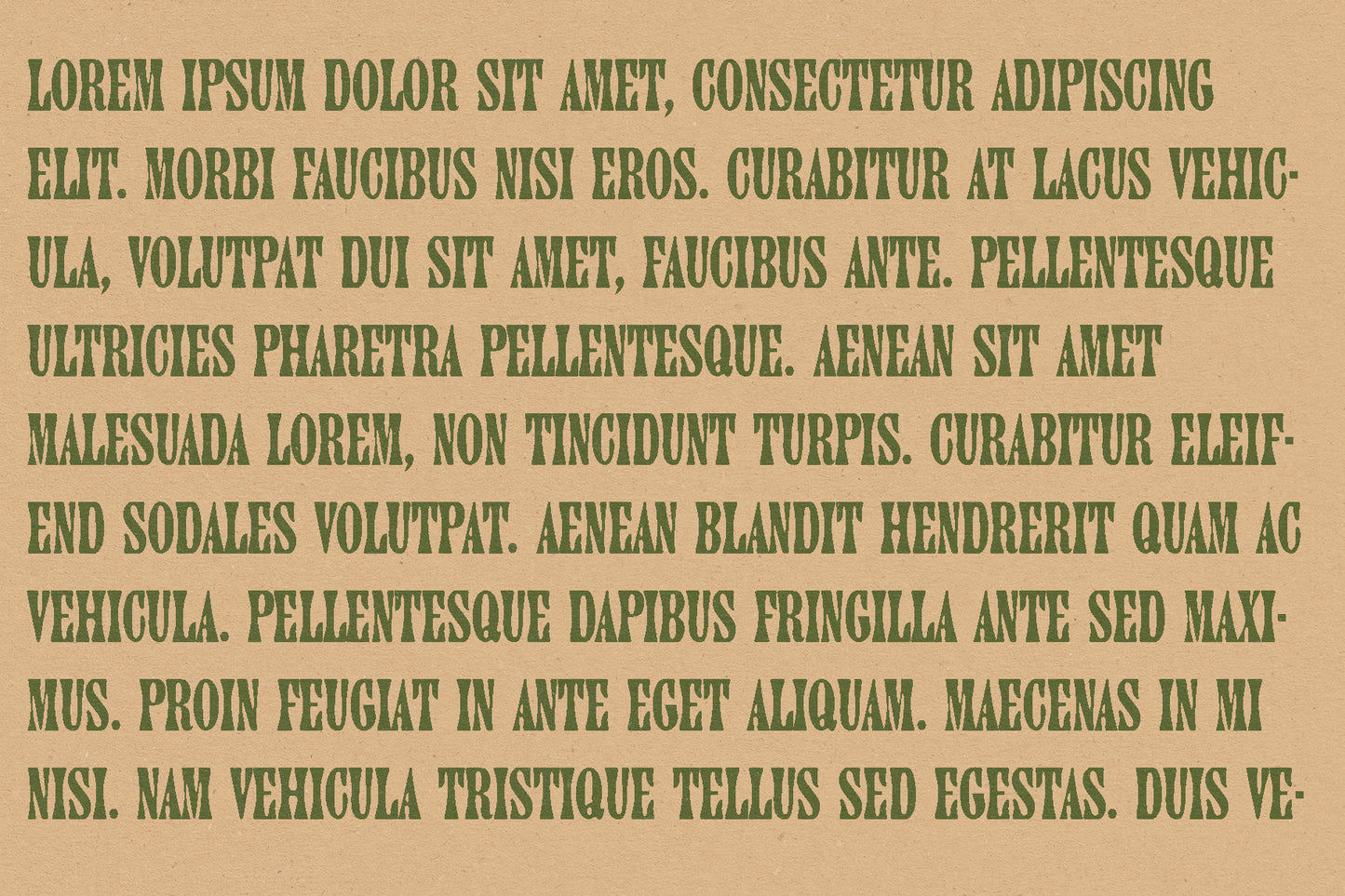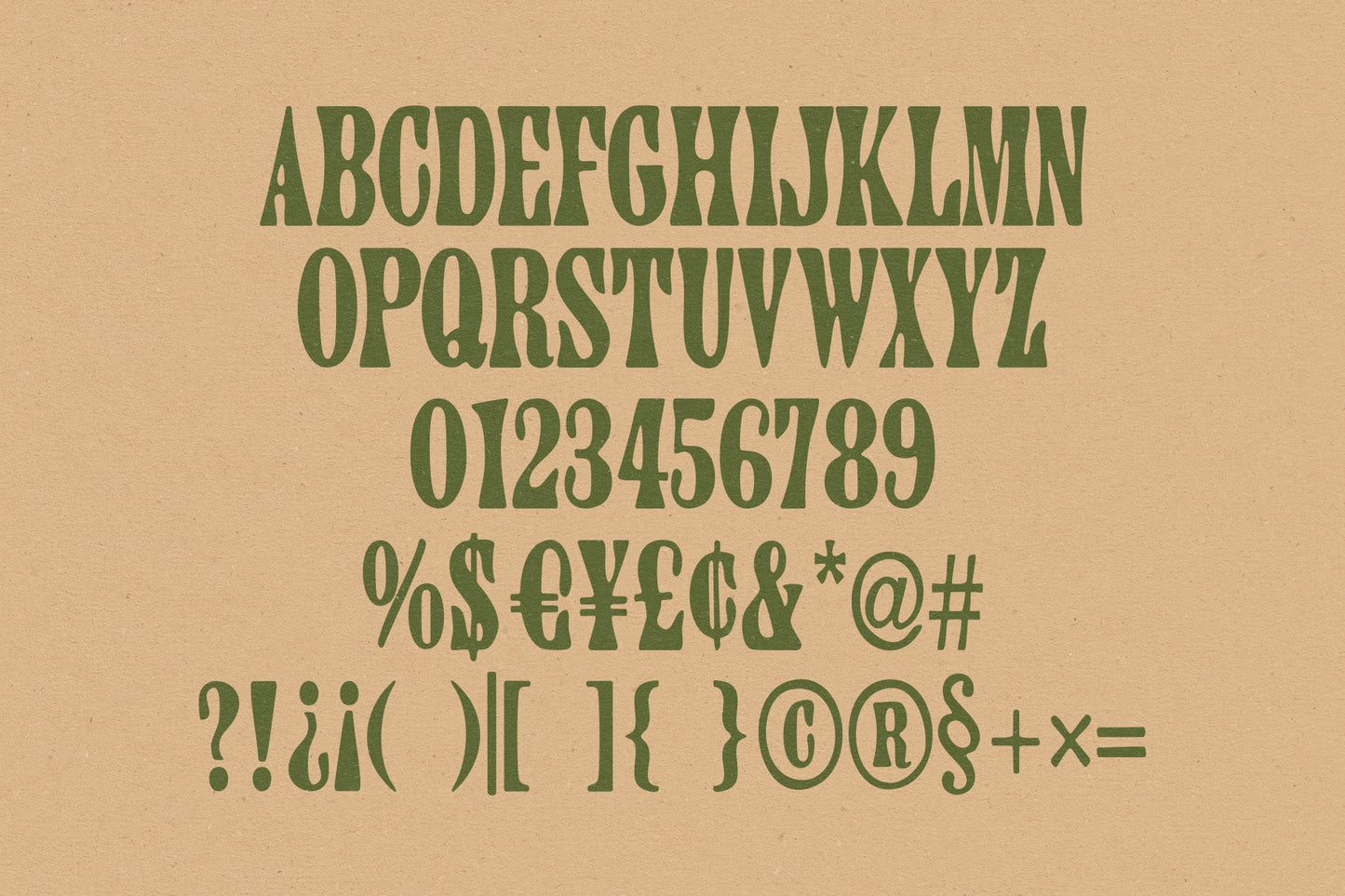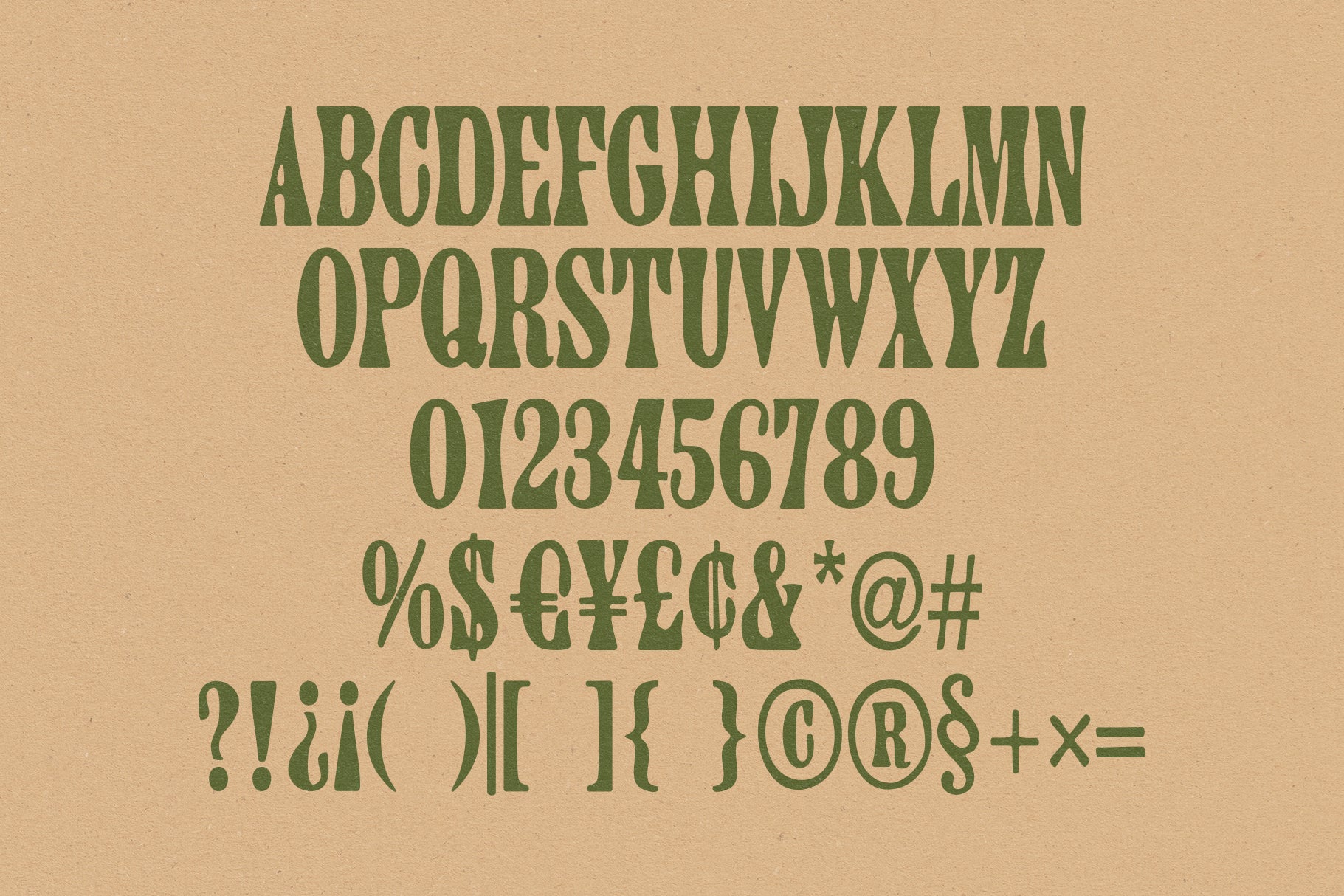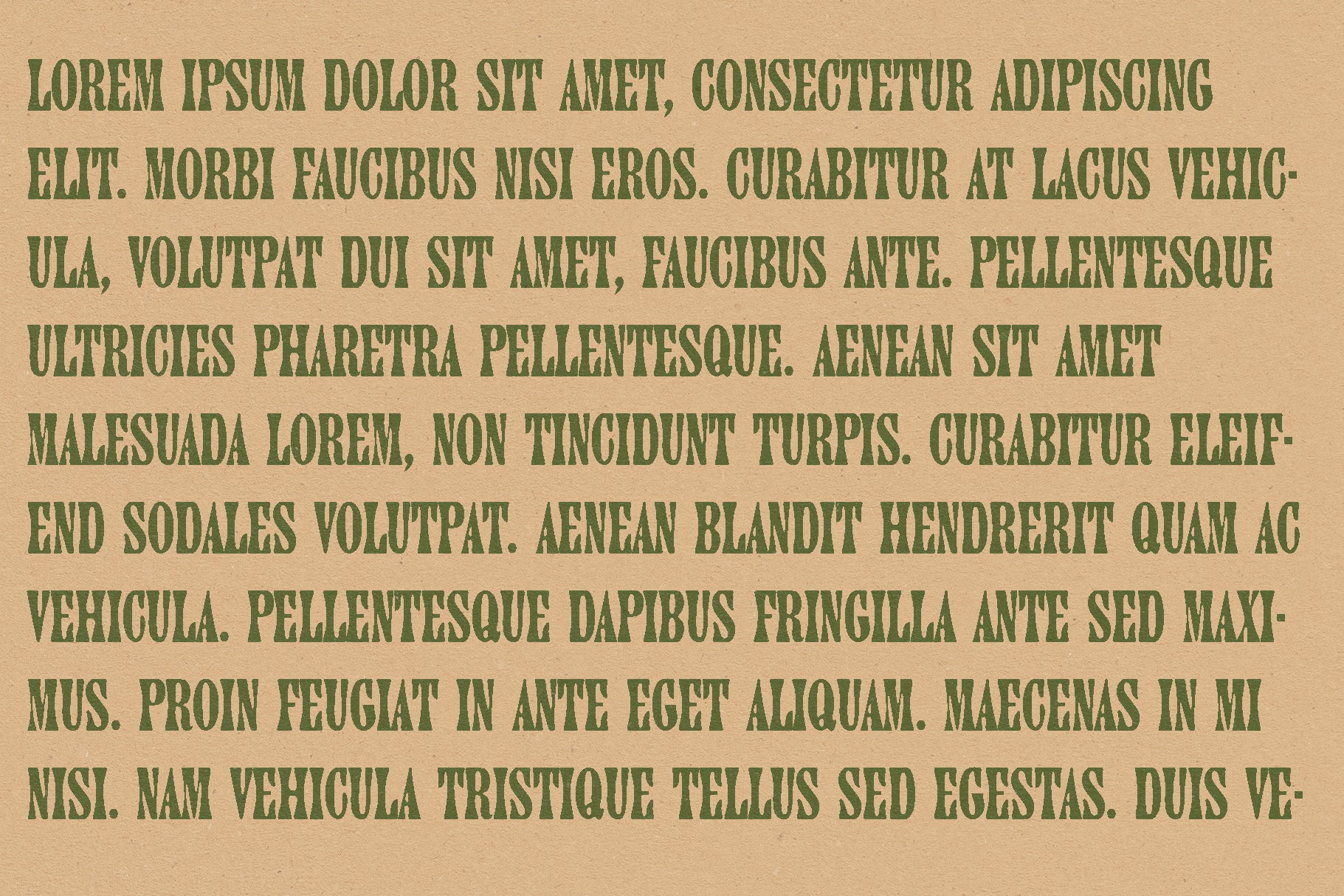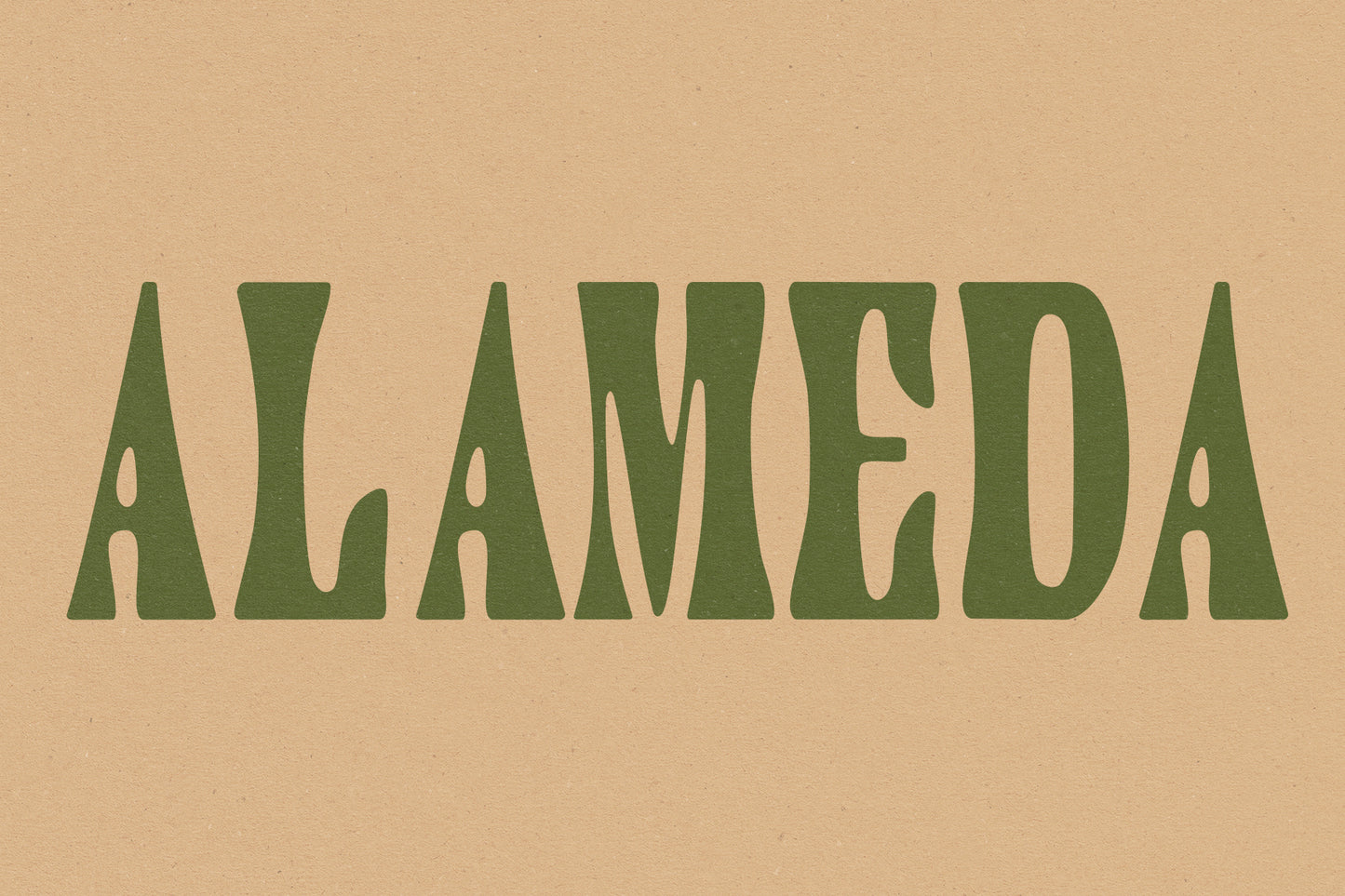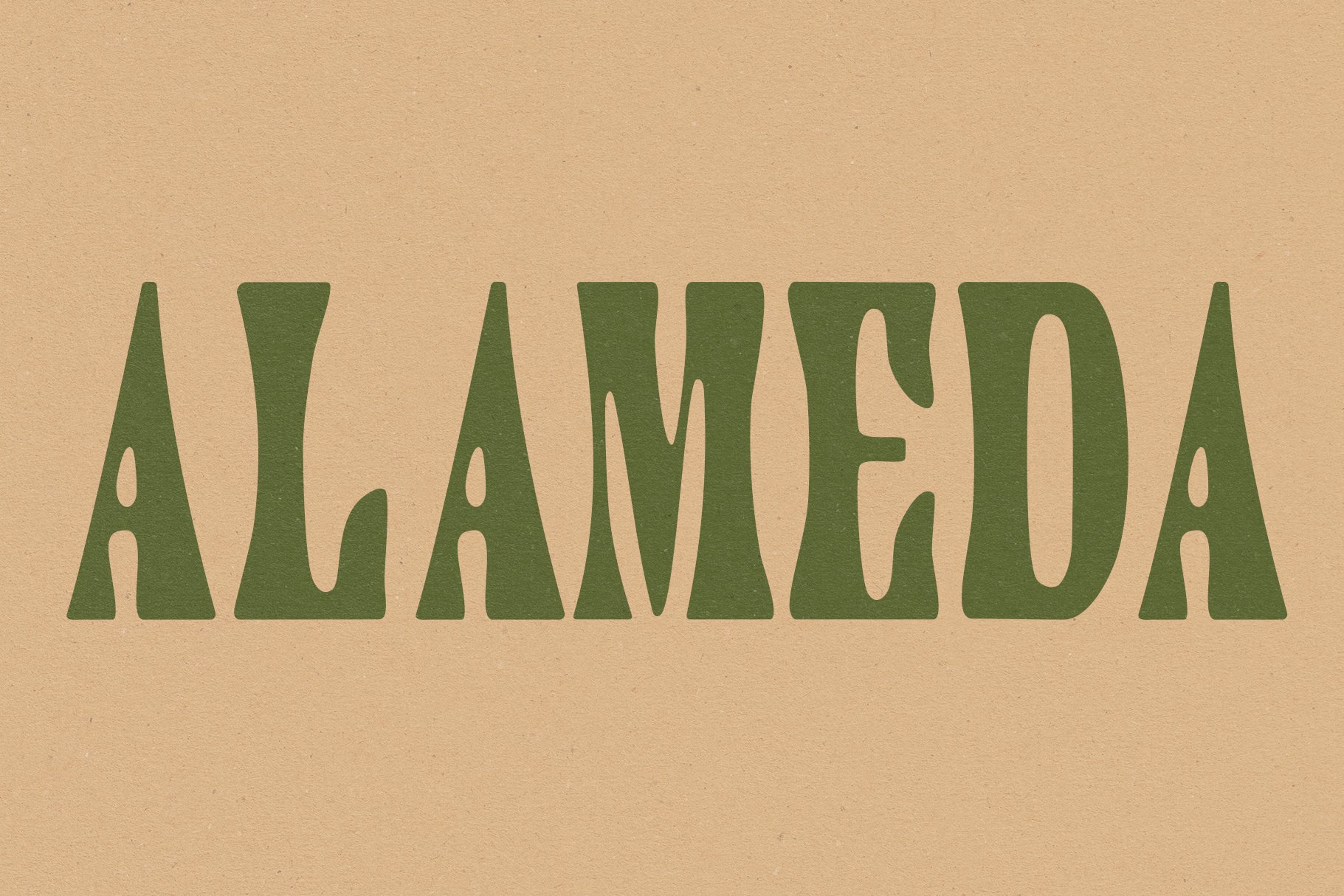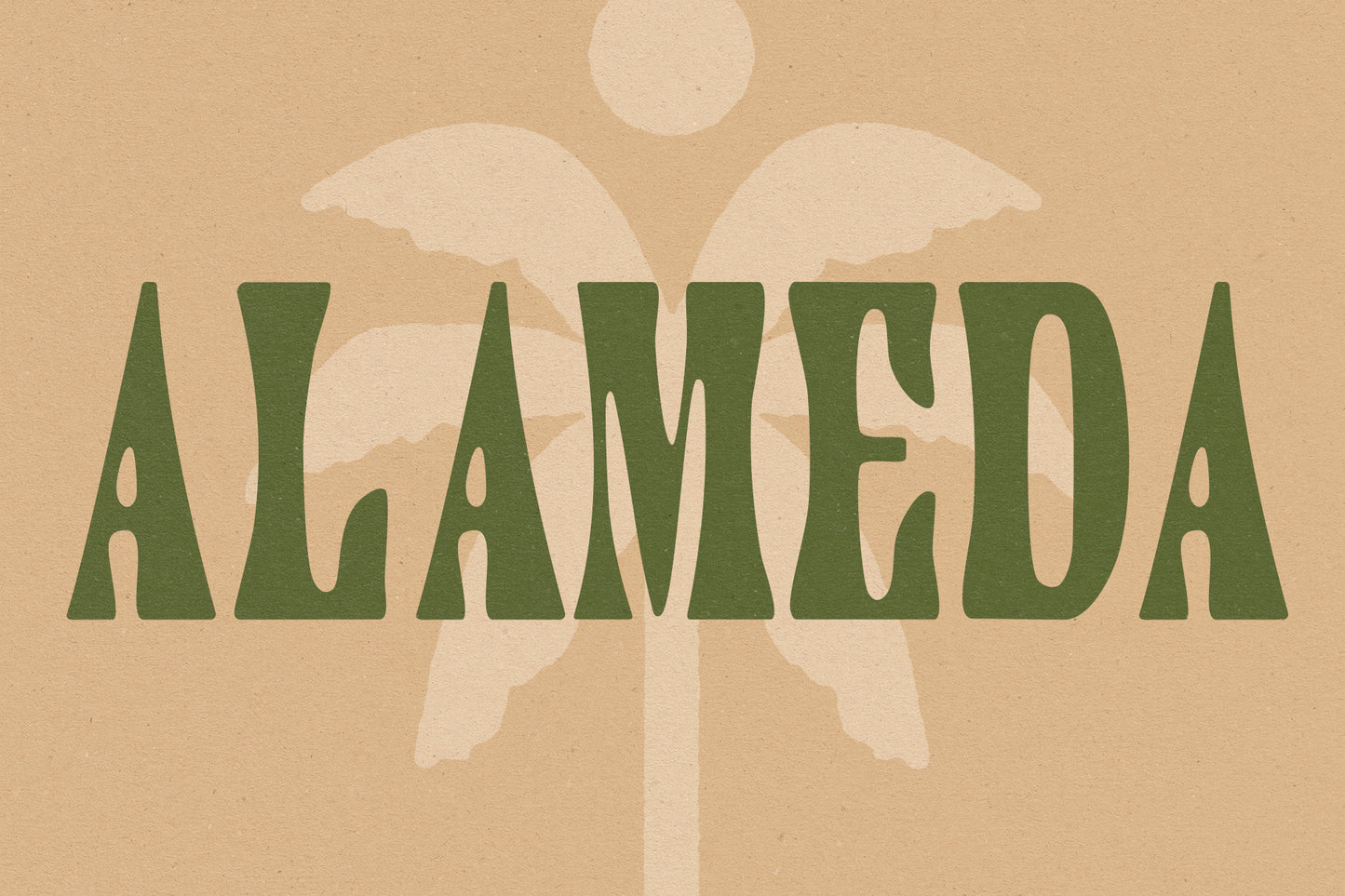
Alameda Typeface
I made Alameda after looking for a more condensed, contrasty uppercase font and not really being able to find what I was looking for. It ended up perfect for the project I was working on at the time and I think it will work so well for anything a bit Western, a bit vintage. Really love this one!
Includes multiple language support and punctuation.